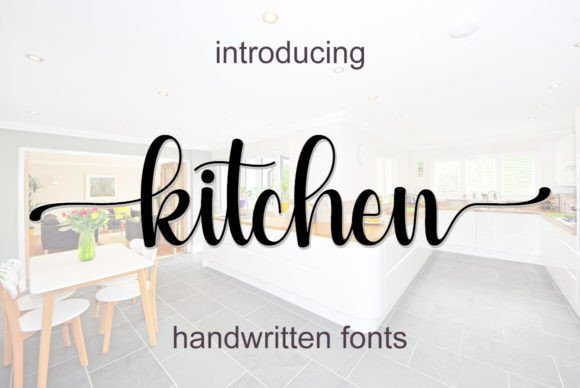
Introducing the Kitchen Font, a captivating script font created by Hardiboy Design. With its simple and friendly handwritten style, this font is the perfect choice for anyone looking to add a touch of elegance to their projects.
Are you a craft enthusiast? A digital designer? Or perhaps someone who loves creating beautiful presentations or greeting cards? Look no further, because the Kitchen Font is here to elevate your work to new heights.
Imagine the possibilities when you have the best font for wedding rings at your fingertips. Every stroke of this font exudes charm and sophistication, making it the ideal choice for any wedding-related project. From designing stunning wedding invitations to creating unique wedding logos, the Kitchen Font will leave a lasting impression on every couple who lays eyes on it.
But that's not all! The Kitchen Font is not just limited to weddings. Its versatility allows it to shine in various projects, ensuring that you never run out of creative ideas. Crafters will adore how this font effortlessly adds a personalized touch to their handmade creations. Digital designers will appreciate its ability to bring their visions to life with its unique flair. And presenters will find that their slides become more captivating with the Kitchen Font's irresistible charm.
What sets the Kitchen Font apart is its PUA encoding. This means that you can effortlessly access all of the glyphs and alternates, giving you endless design possibilities. Each character is meticulously crafted to ensure seamless connectivity and a visually pleasing flow.
But let's not forget the emotional impact this font has. It evokes feelings of warmth, joy, and nostalgia, transporting your audience to a world filled with love and happiness. The Kitchen Font creates a connection that goes beyond words, making it the perfect choice for any heartfelt message or expression of love.